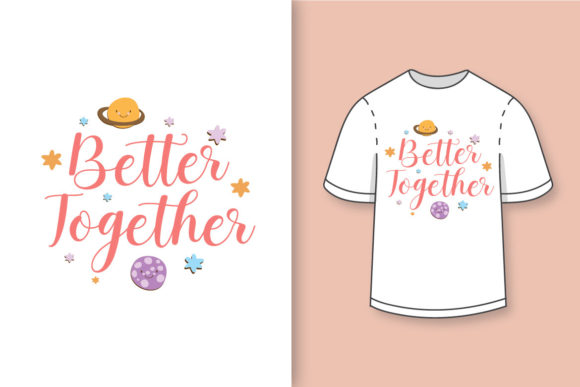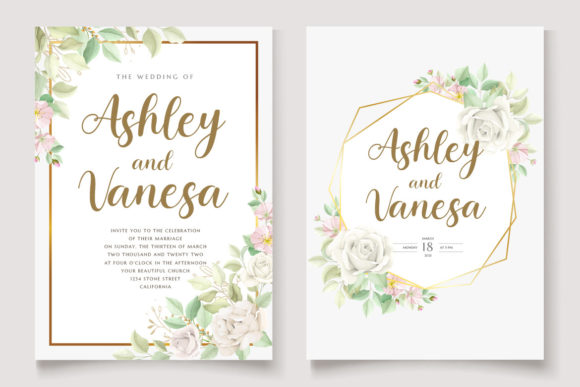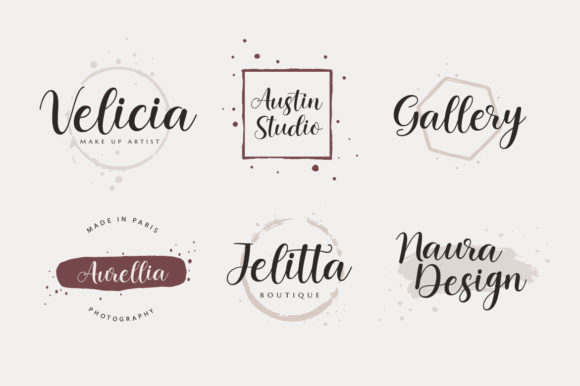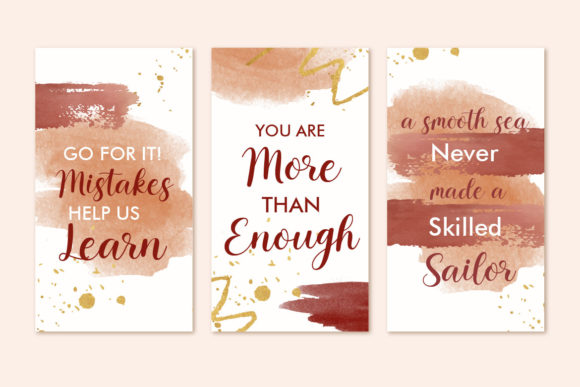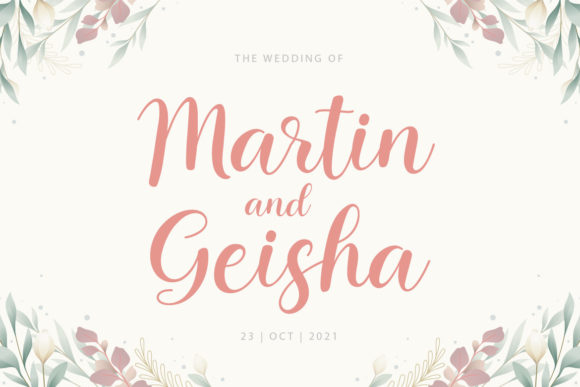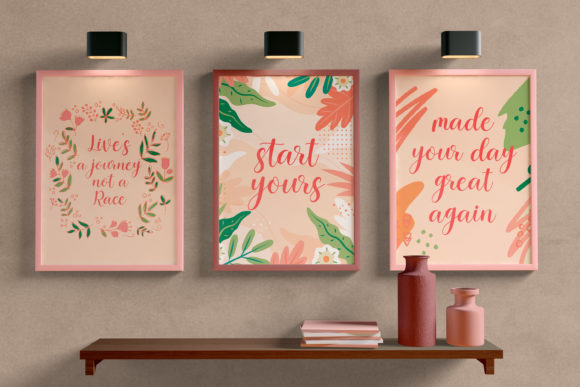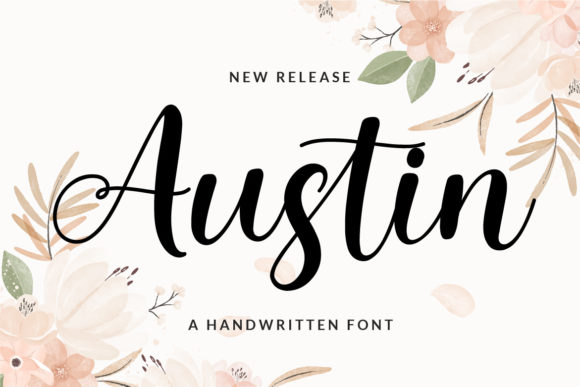
Austin Font: The Perfect Handwritten Style for Your Designs
Austin is an enchanting handwritten font that has captured the hearts of designers and crafters alike. Its unique and personalized style makes it an ideal choice for a variety of designs, from wedding invitations and thank you cards to logos and greeting cards. In this article, we’ll dive into the world of Austin Font and explore its features, uses, and benefits.
What is Austin Font?
Austin Font is a beautiful handwritten font that exudes elegance and sophistication. Its flowing strokes and delicate curves give it a charming and whimsical feel, making it perfect for designs that require a personal touch. Whether you’re looking to create a romantic wedding invitation or a heartfelt thank you card, Austin Font is sure to impress.
Features of Austin Font
Austin Font comes with a range of features that make it a versatile and practical choice for designers and crafters. Some of its key features include:
- Handwritten style: Austin Font has a beautiful handwritten style that gives it a personal and unique feel.
- Elegant and sophisticated: The font’s flowing strokes and delicate curves make it perfect for designs that require a touch of elegance and sophistication.
- Versatile: Austin Font can be used for a variety of designs, from wedding invitations and thank you cards to logos and greeting cards.
- Easy to read: Despite its handwritten style, Austin Font is easy to read and understand, making it perfect for designs that require a clear and concise message.
Uses of Austin Font
Austin Font is a versatile font that can be used for a wide range of designs, including:
- Wedding invitations: Austin Font is perfect for creating beautiful and romantic wedding invitations that set the tone for the big day.
- Thank you cards: The font’s elegant and sophisticated style makes it ideal for creating heartfelt thank you cards for special occasions.
- Greeting cards: Austin Font can be used to create a variety of greeting cards, from birthday and anniversary cards to get well and congratulations cards.
- Logos: The font’s unique and personalized style makes it perfect for creating logos that require a touch of elegance and sophistication.
Benefits of Using Austin Font
Using Austin Font for your designs comes with a range of benefits, including:
- Unique and personalized style: Austin Font’s handwritten style gives it a unique and personalized feel that sets it apart from other fonts.
- Elegant and sophisticated: The font’s elegant and sophisticated style makes it perfect for designs that require a touch of luxury and refinement.
- High-quality: Austin Font is a high-quality font that is designed to produce clear and crisp results, even at small sizes.
Tips for Using Austin Font
Here are some tips for using Austin Font in your designs:
- Use it for headings and titles: Austin Font is perfect for headings and titles, where its elegant and sophisticated style can really shine.
- Pair it with other fonts: Austin Font can be paired with other fonts to create a unique and interesting contrast.
- Experiment with different colors: The font’s beautiful handwritten style looks great in a variety of colors, from bold and bright to soft and pastel.
- Use it for digital and print designs: Austin Font can be used for both digital and print designs, making it a versatile choice for designers and crafters.
| Font Name | Austin Font |
Austin Font is a beautiful and enchanting handwritten font that is perfect for designers and crafters looking to add a personal touch to their designs. Its elegant and sophisticated style makes it ideal for a variety of designs, from wedding invitations and thank you cards to logos and greeting cards. With its range of features, uses, and benefits, Austin Font is a great choice for anyone looking to create unique and beautiful designs.